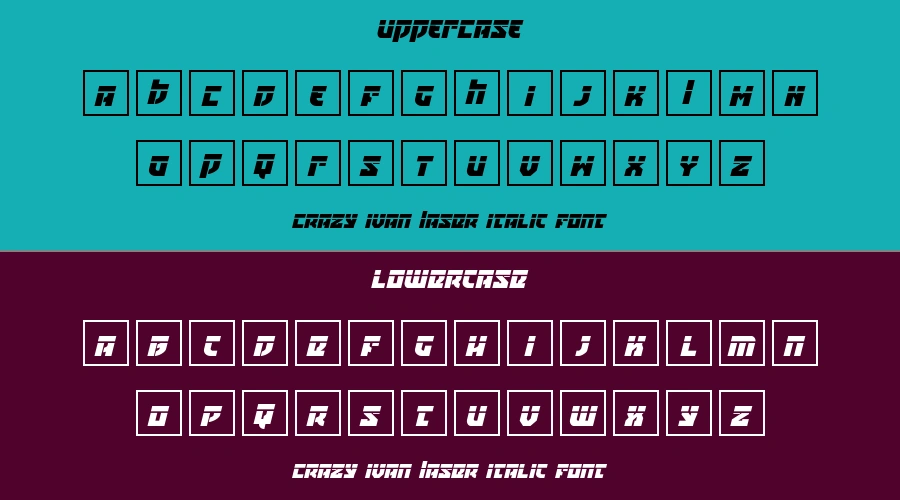
About Crazy Ivan Laser Italic Font
Crazy Ivan Laser Italic Font embodies typographic excellence through its masterful combination of hand-drawn quality and professional finish. Created for album artwork, this typeface delivers exceptional accuracy and visual authority across all applications. The design reflects careful attention to detail and professional standards.
Advanced capabilities include distinctive refined proportions and versatile word-end alternates, giving designers creative control. When used in pull quotes, Crazy Ivan Laser Italic Font exhibits remarkable body text reading. The harmonious balance between joint detail and market position sets this typeface apart.